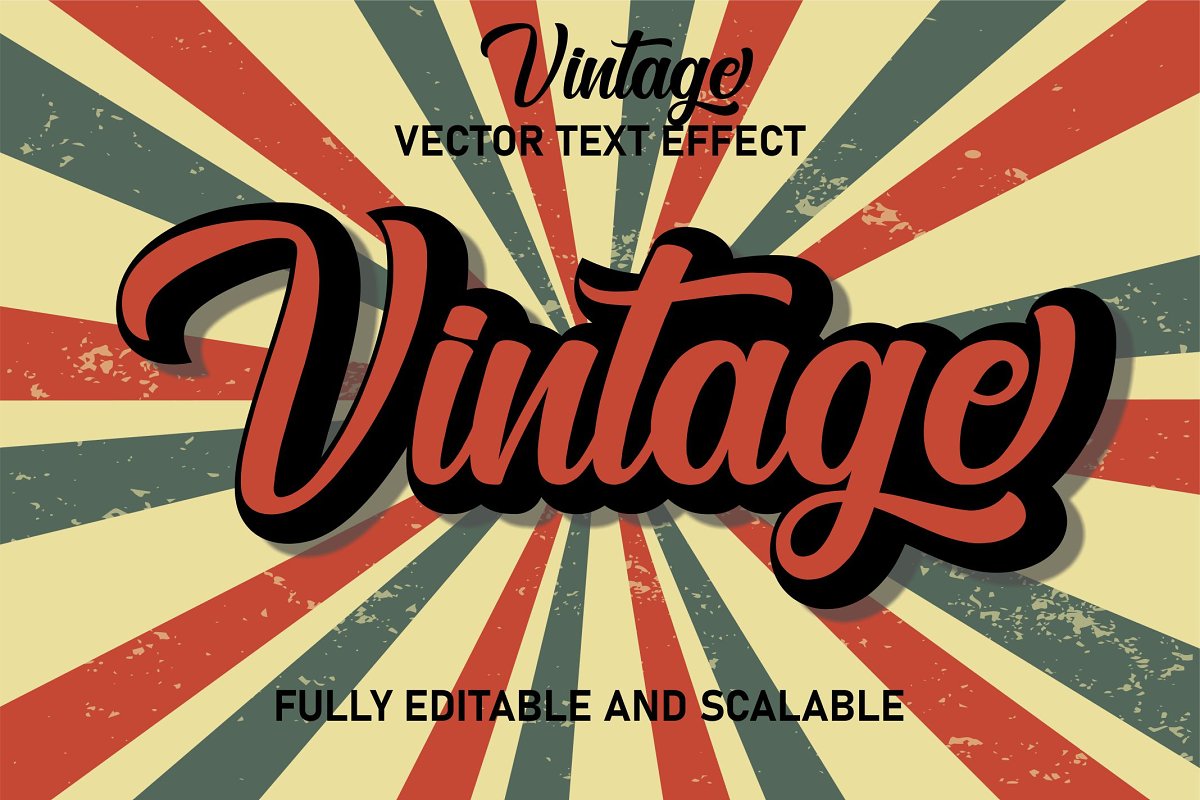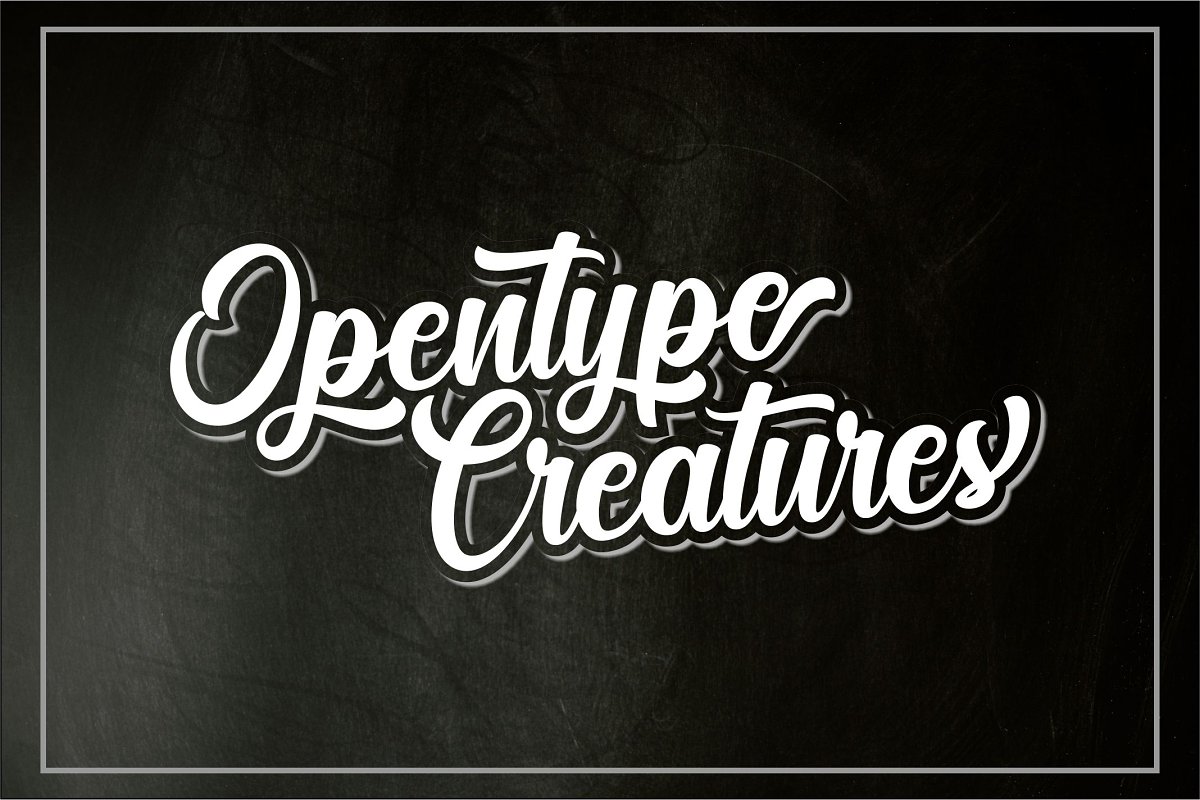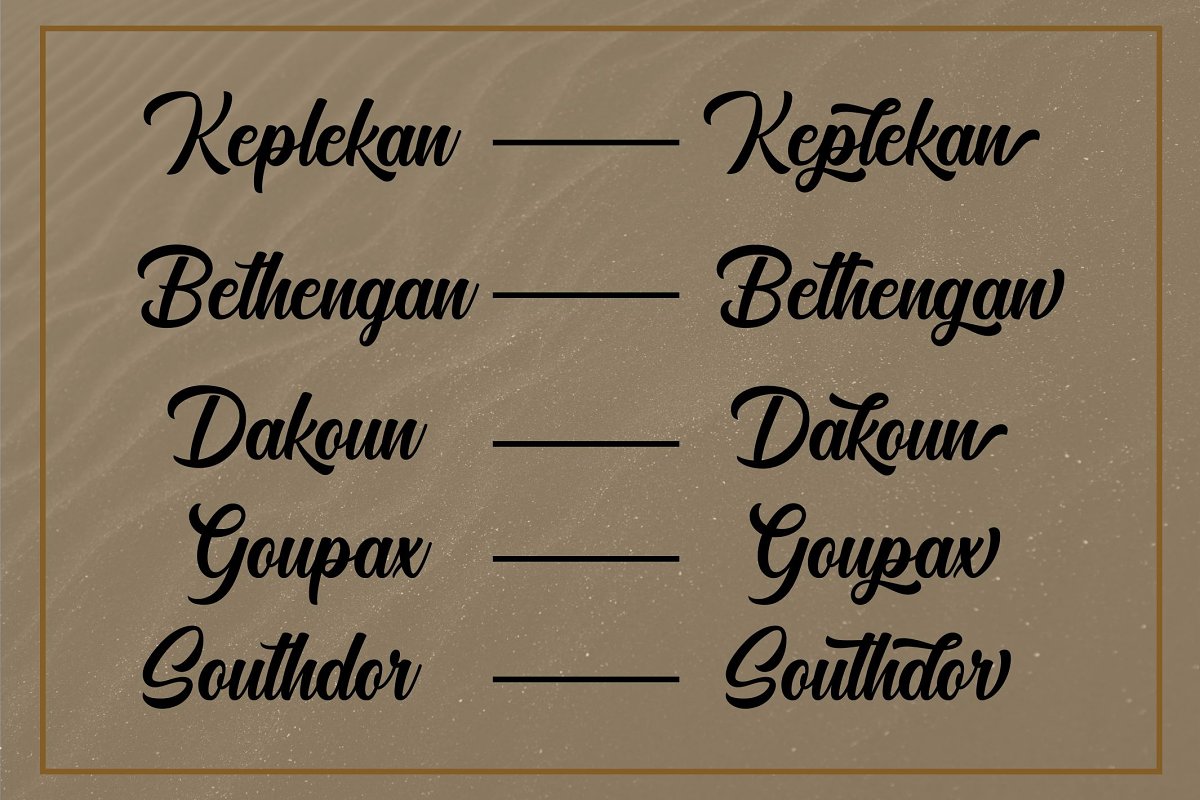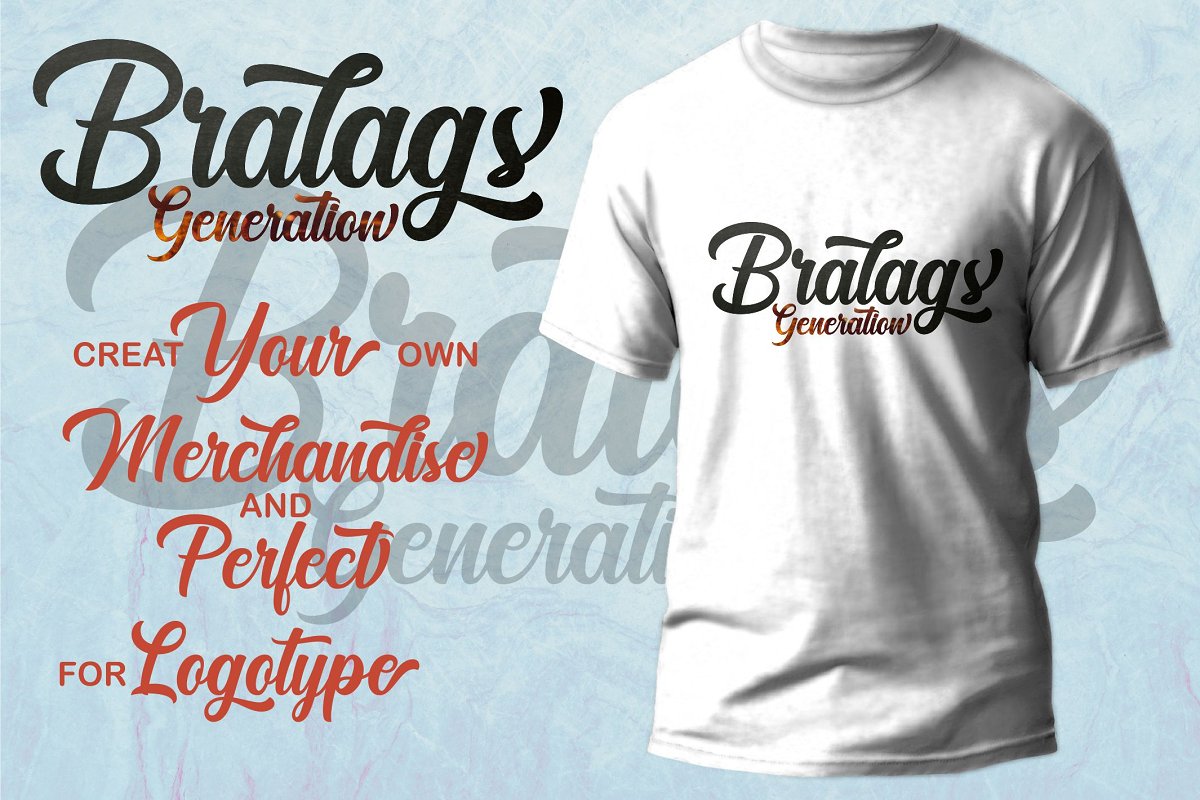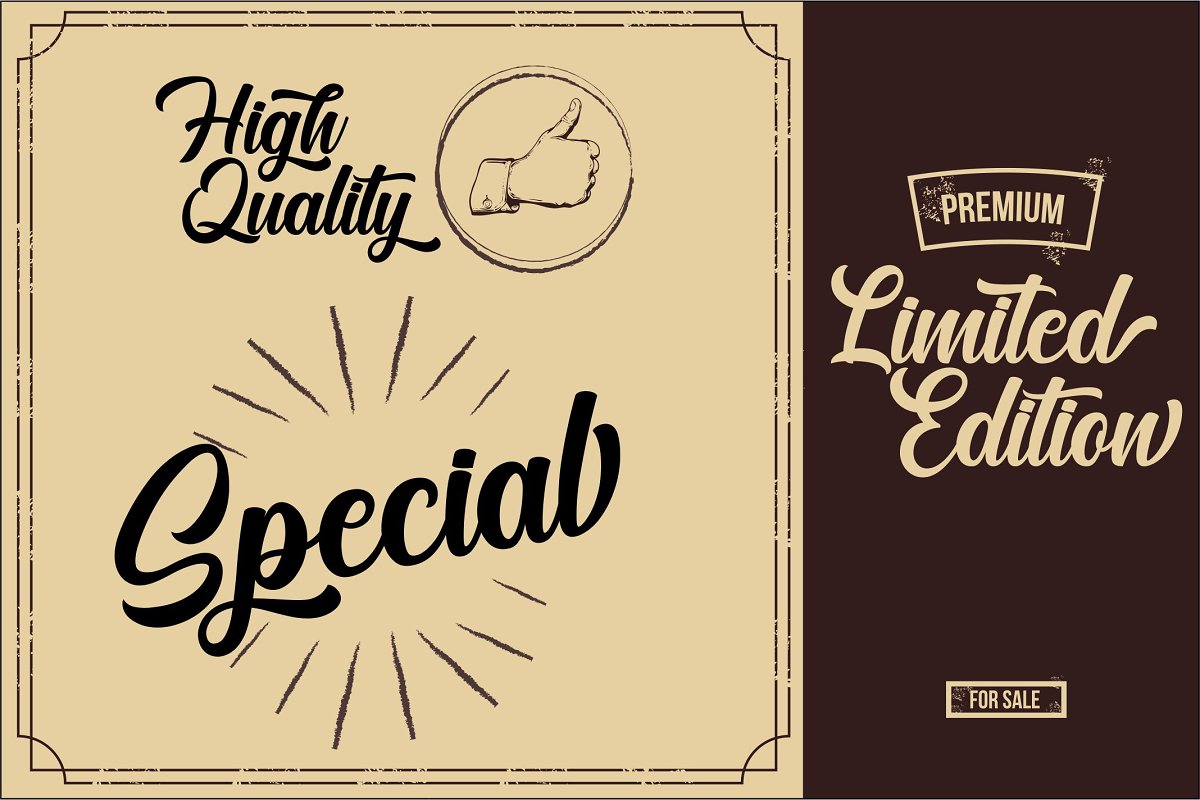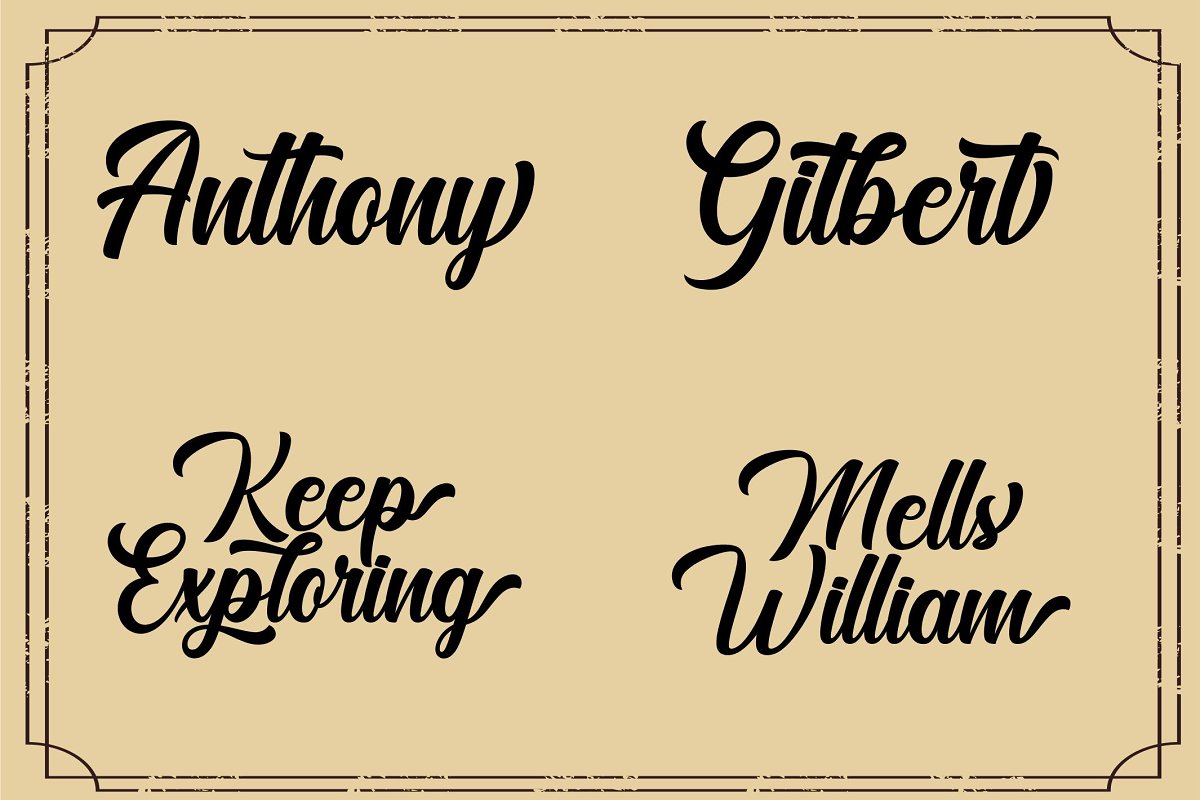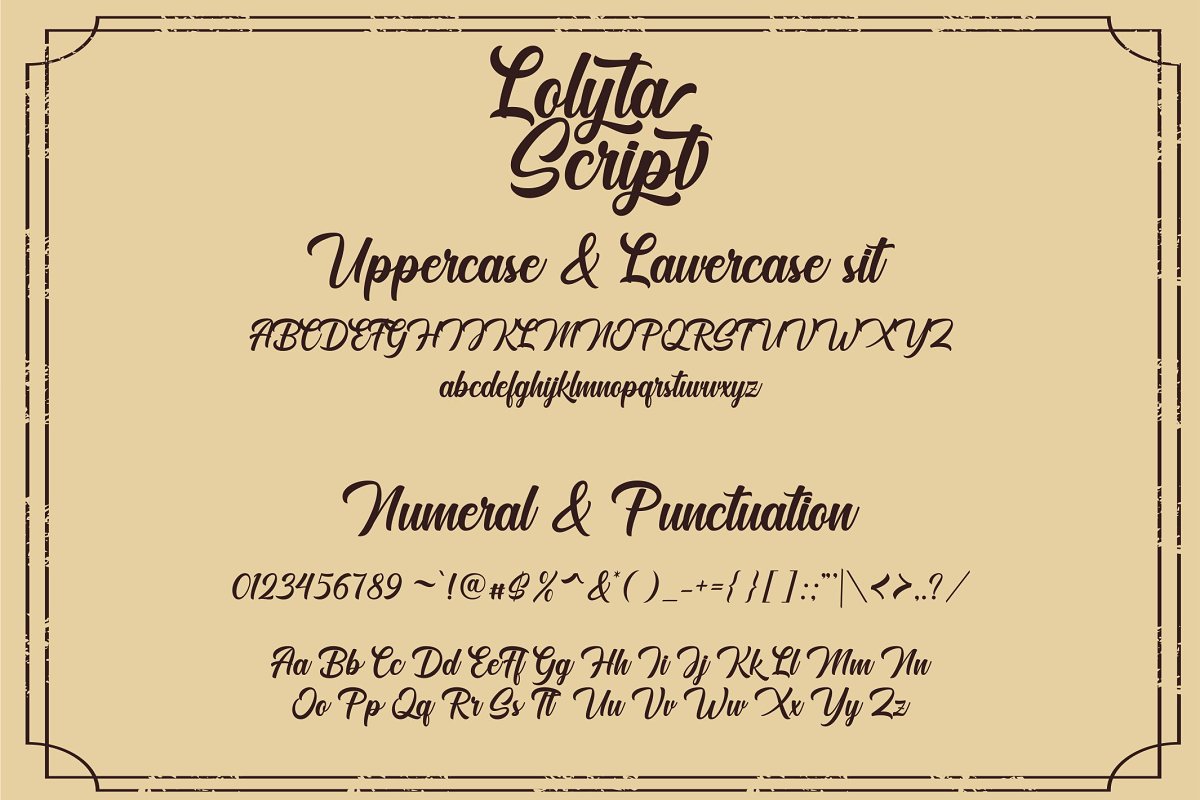
About the Lolyta Script Font
Lolyta is a beautiful script font. Fall in love with its completely different and timeless style, and use it to create spectacular designs! This font was crafted to give your headlines and logotype projects a stylish touch. This font reads as strong, confident, and dynamic and can add tons of nostalgic character to your designs.
This font is PUA encoded, which means you can access all of the glyphs and swashes with ease!